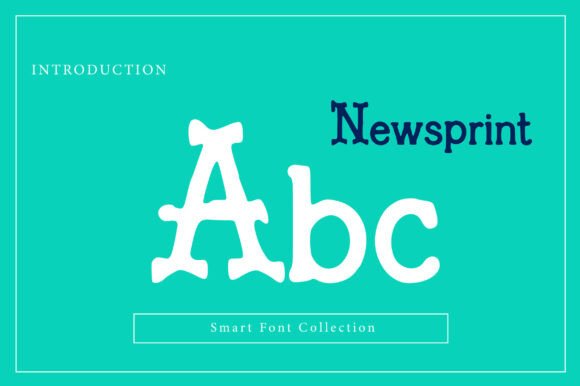
Introduction to Newsprint Font
Newsprint is a bold and character-rich vintage serif display font inspired by classic newspaper headlines and old-style print typography.
With its strong letterforms, slightly rough personality, and traditional editorial feel, this typeface delivers an authentic retro press / vintage print vibeโperfect for designs that need a timeless and bold statement Designed to capture the charm of old newspapers and vintage publishing, Newsprint works beautifully for headlines, editorial layouts, posters, branding, book covers, vintage packaging, labels, logo typography, and retro-inspired graphic design.
Key Features of Newsprint Font
Newsprint Font offers exceptional quality and versatility, making it a valuable addition to your design toolkit. Whether you’re creating for personal projects or commercial use, Newsprint Font delivers professional results.